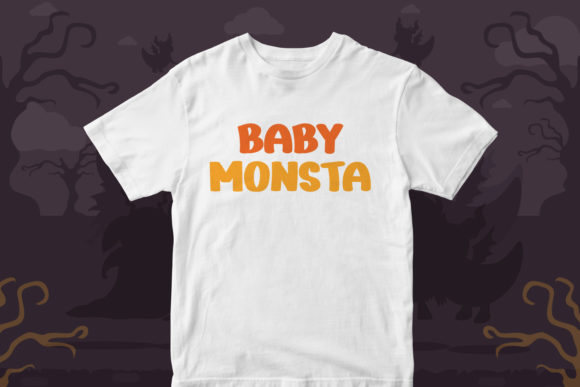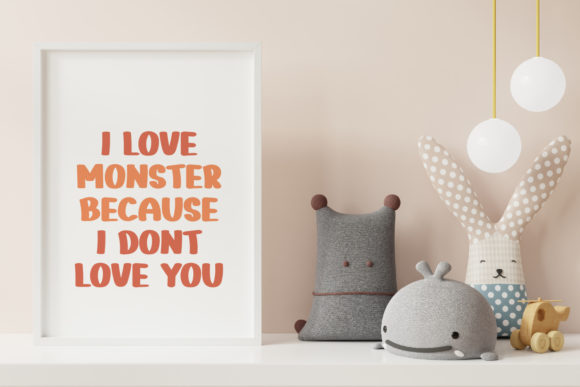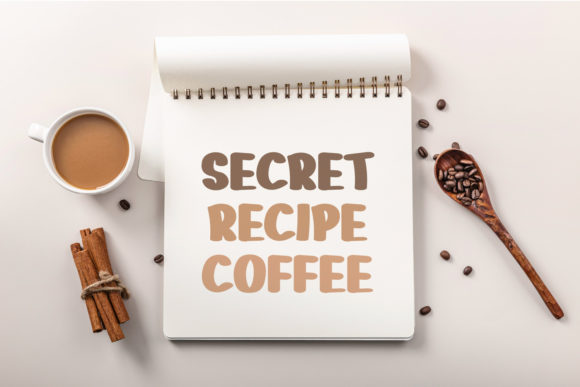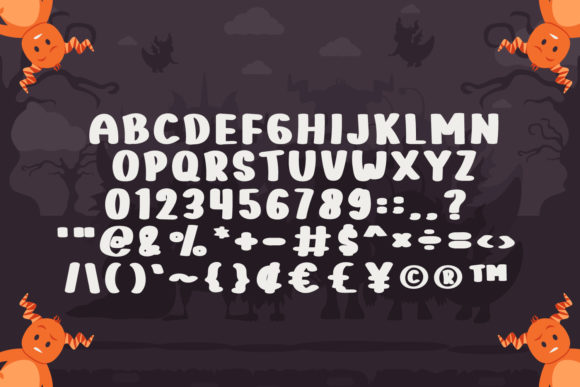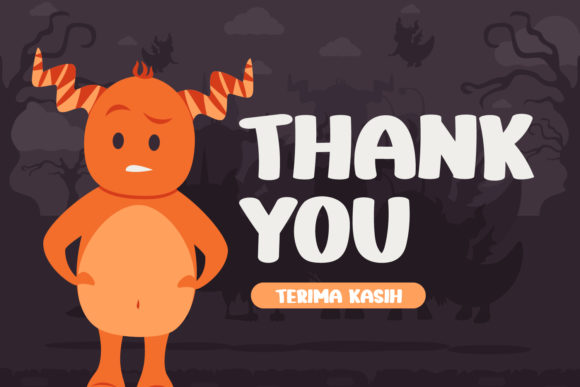
Introduction to Monster Funny Font
Monster Funny is a unique and interesting display font.
A little bit quirky, this font is a great choice for a wide variety of contexts This font is perfect for quotes, shirt designs, websites, branding, childrenโs designs, blogs, logos, invitations and more.